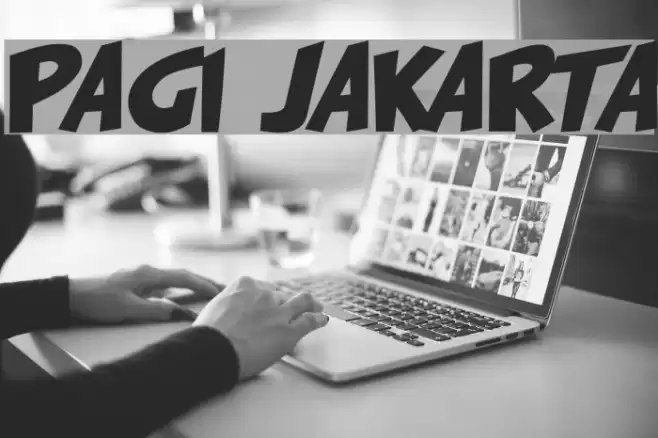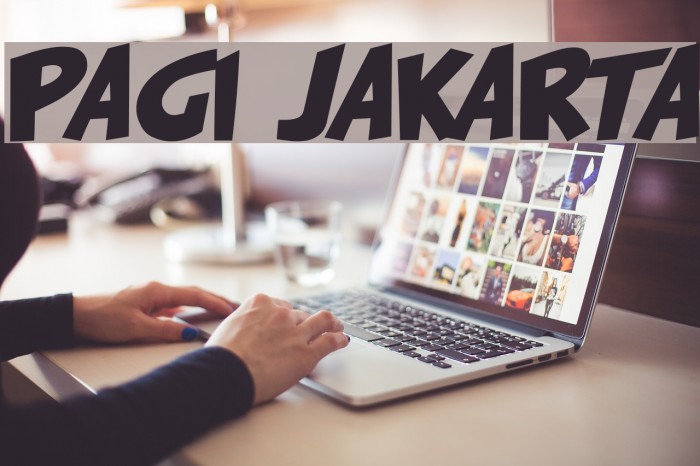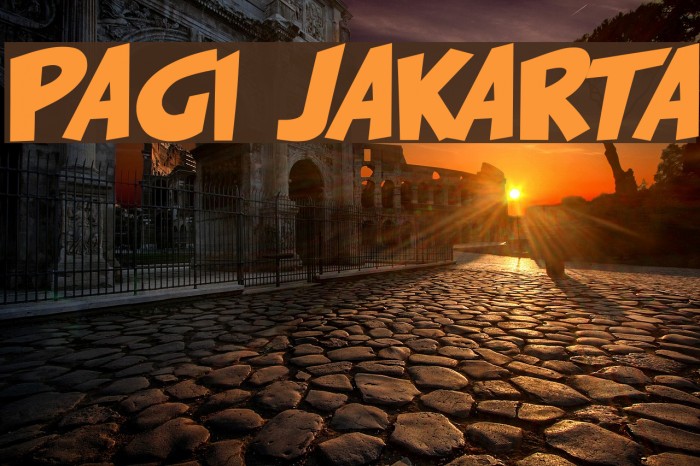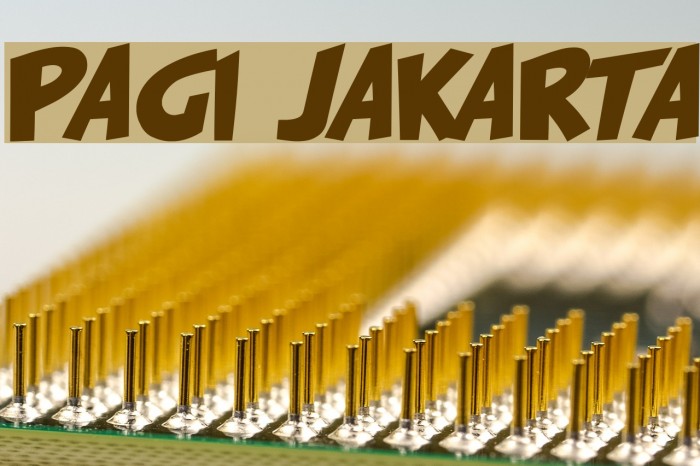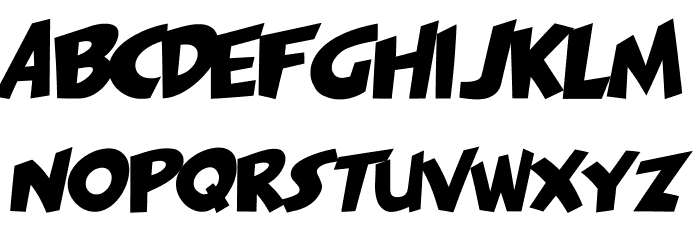
PAGI JAKARTA Font
PAGI JAKARTA Description
This font features bold, angular characters with a dynamic and energetic style. The uppercase letters are particularly striking, with sharp edges and a slightly forward-leaning posture that conveys a sense of movement and excitement. The boldness of the strokes gives the font a strong presence, making it ideal for attention-grabbing headlines or impactful designs. The characters are tightly spaced, enhancing the compact and robust appearance. The font's unique style is both modern and slightly retro, reminiscent of vintage comic book lettering or dynamic sports branding.
A bold, angular font with dynamic, forward-leaning characters from Uncategorized fonts.
- Proposed Projects: This font is perfect for sports branding, comic book titles, dynamic posters, and any project needing a bold, energetic typeface.